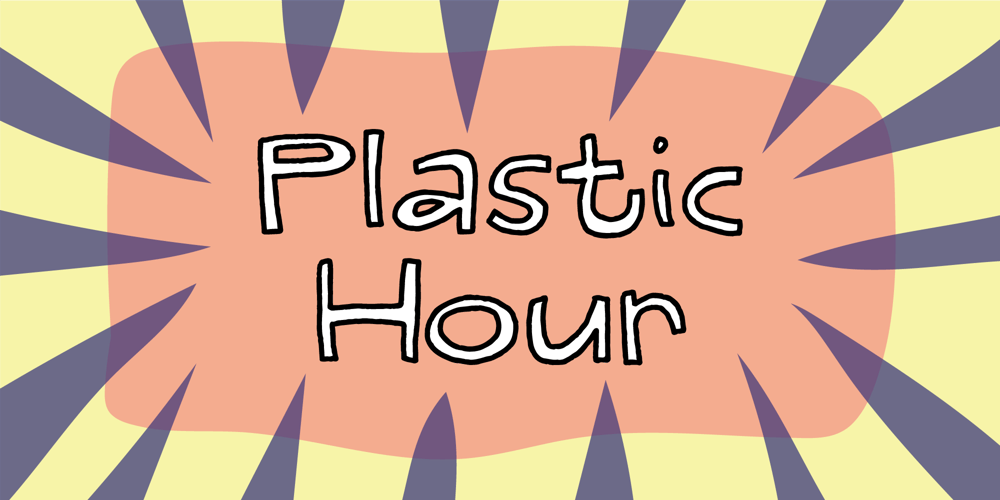
Plastic Hour Font Family was designed by Jakob Fischer and published by PizzaDude.dk. Plastic Hour contains 3 styles and family package options. Treat your next design with a slightly rough and handmade font: Plastic Hour!Enjoy the organic and unpredictable strokes jump and bounce – but never overdoing it.I have added 3 versions that plays well together: Regular, Inside and Outline!